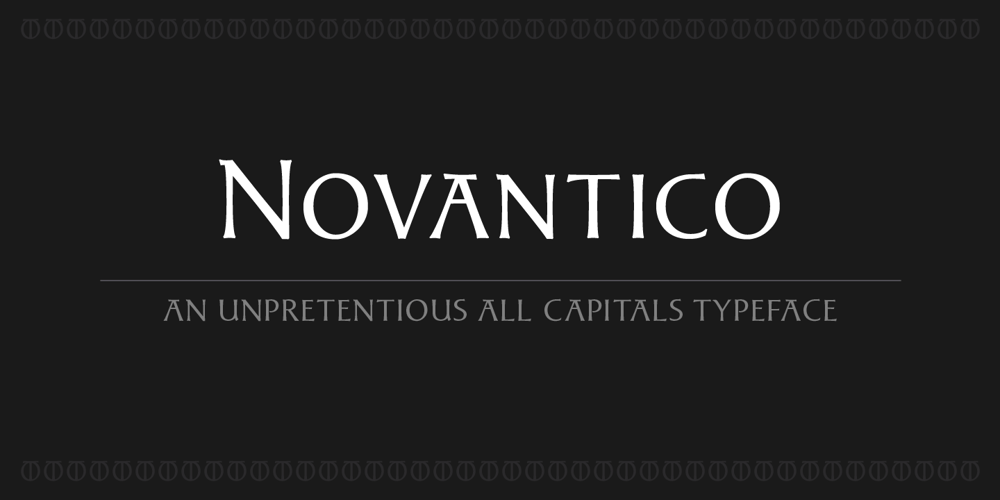
Novantico
Novantico font
Novantico Font Family was designed by Filip Karaga and published by Typofactura. Novantico contains 1 styles and family package options. Novantico is an all capitals typeface, influenced mainly by roman inscriptional capitals and renaissance typefaces. Classicly designed forms give text a noble and elegant feel. It is intended to be used for relatively short and important texts, titles, headings, quotes, etc.